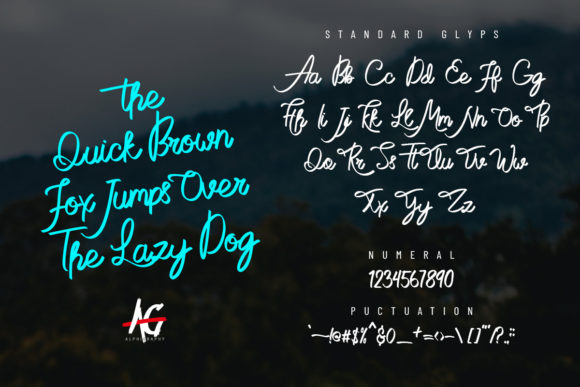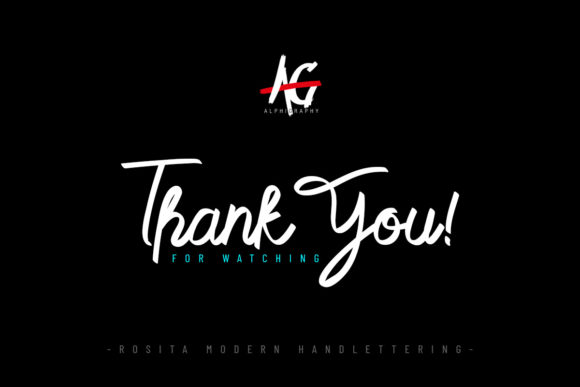
Introduction to Rosita Font
As a designer, there’s nothing quite like the thrill of bringing a creative project to life. You’ve got your vision, your ideas, and your tools – but sometimes, it’s the smallest details that can make all the difference. For me, that detail is the perfect font. And, let me tell you, I’ve found it – the Rosita Font.
This elegant and beautiful script font is a game-changer. Not only does it add a touch of sophistication to any design, but it’s also incredibly versatile. Whether you’re working on a branding project, creating wedding stationery, or designing business cards, the Rosita Font is the perfect choice. And the best part? It’s available for a free download, complete with a transparent background, making it easy to integrate into any design.
As a valuable resource for designers, the Rosita Font is a high-quality addition to any design arsenal. Its unique, hand-crafted feel is sure to elevate your designs and leave a lasting impression on your clients. So why settle for a generic font when you can have the best? Get ready to take your designs to the next level with the Rosita Font.
Rosita Font
- High-quality design resource ideal for creative projects, including illustrations, graphics, and digital art.
- Comes with a transparent background, allowing for seamless integration into various design environments.
- Vector-based design, ensuring scalability without loss of quality, and resolution independence up to 300 DPI.
- Unique, hand-drawn style with intricate details, adding a touch of personality to any creative project.
Honest Review: Rosita Font
I recently stumbled upon the Rosita Font and was excited to give it a try in my latest design project. As a designer, I’m always on the lookout for high-quality design resources that can elevate my creative work. The Rosita Font did not disappoint.
- ✨ The font has a beautiful, elegant design that’s perfect for headings and titles.
- ✨ The font is highly customizable, with options for various weights and styles.
- ⚠️ The font does not include a transparent background, which can be a limitation for designers who need to use it on complex backgrounds.
- ⚠️ The font is not as extensive as some other font families, with fewer weights and styles available.
Overall, I was impressed with the Rosita Font and would definitely recommend it for designers working on a wide range of creative projects. Its high-quality design and customizable options make it a valuable addition to any design resource library.
Rosita Font
The Rosita Font is a versatile and high-quality design resource ideal for creative projects. With a transparent background, this font is perfect for adding a touch of elegance to your designs.
Tips for Getting the Most Out of Rosita Font
Experiment with different font sizes, colors, and combinations to create unique and eye-catching designs. You can also use the Rosita Font in conjunction with other design elements to add depth and interest to your projects.
The Rosita Font is ideal for a variety of creative projects, including graphic design, branding, and digital art. It’s also perfect for adding a touch of elegance to presentations, reports, and other business documents.
Alternatives to Rosita Font
A high-quality, elegant script font ideal for creative projects that require a touch of sophistication and refinement. It’s perfect for wedding invitations, branding, and packaging design. Alex Brush Font offers a similar feel to Rosita Font, but with a more refined and delicate appearance.
A versatile, modern script font suitable for a wide range of design applications, from business cards to magazine headlines. Carolyna Pro Font is highly customizable and offers a transparent background, making it easy to use on various design elements. While it’s not as cursive as Rosita Font, Carolyna Pro Font provides a more modern and dynamic feel.